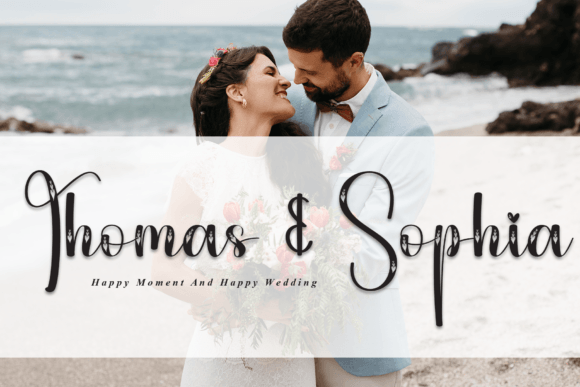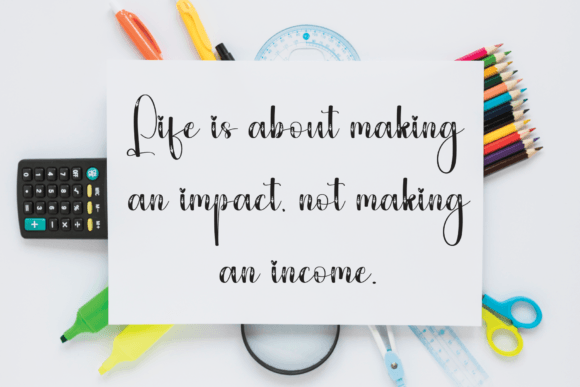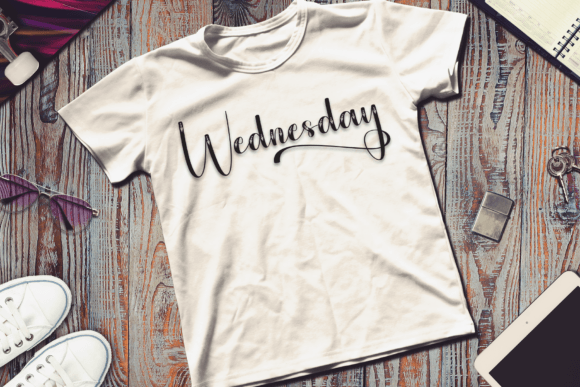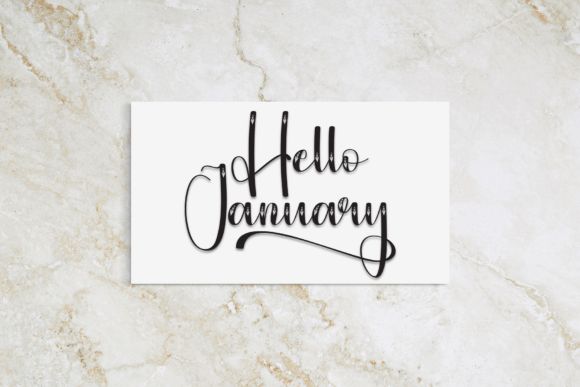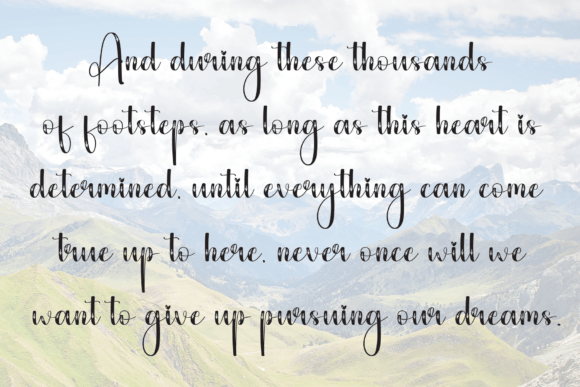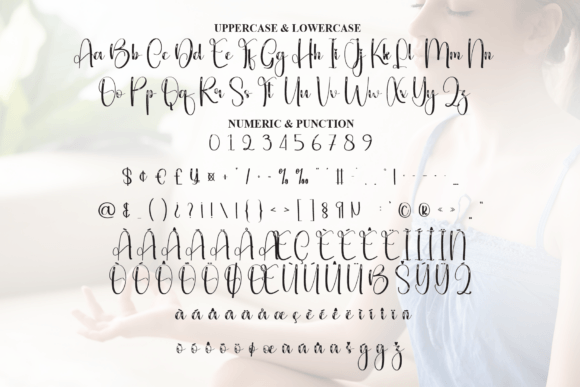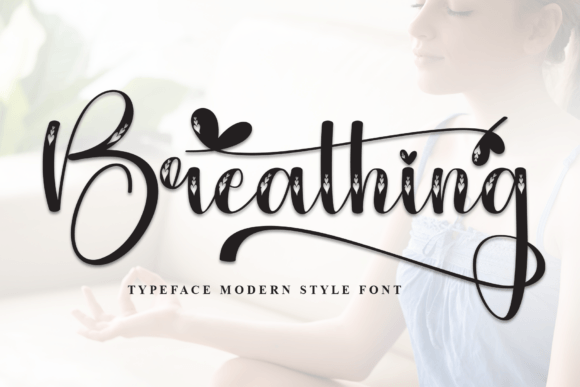
The Art of Beautiful Typography
There’s something magical about holding a beautiful invitation in your hands, the paper’s texture, the color of the ink, and the delicate strokes of the font that transport you to a world of elegance and sophistication. As designers, we strive to create such moments, to leave a lasting impression on our audience. And that’s where the Breathing Font comes in – a stylish handwritten script font that adds a personal touch to any design.
This enchanting font is perfect for invitations, logos, and branding, bringing warmth and creativity to your projects. Its delicate strokes exude charm and elegance, making it a valuable addition to any designer’s toolkit. Whether you’re working on a wedding invitation, a business logo, or a branding campaign, the Breathing Font is sure to elevate your design and leave a lasting impression.
Breathing Font Key Features
- Size: The font comes in multiple sizes, including Regular, Bold, Italic, and Bold Italic, allowing for varied levels of emphasis and expression.
- Unique Characteristic: The Breathing Font features a unique breathing effect, where the letters appear to inhale and exhale, creating a dynamic and engaging visual experience.
- Language Support: The Breathing Font supports a wide range of languages, including Latin, Cyrillic, and Greek scripts, making it a versatile choice for global design projects.
Breathing Font Review
Overall, I’d say the Breathing Font is an interesting and unique font that can add some visual interest to your designs. ✨ Here are some things that work well:
- Unique, dynamic feel: The Breathing Font has a distinctive, pulsing effect that can be used to draw attention or create a sense of movement.
- Customizable: The font comes in a range of styles and weights, making it easy to customize to fit your design needs.
- Perfect for creative projects: The Breathing Font is ideal for use in creative projects, such as infographics, presentations, and advertisements.
- Limited legibility: The Breathing Font’s unique design can make it difficult to read at small sizes or in certain contexts.
- May not be suitable for formal projects: While the Breathing Font can be effective in creative projects, it may not be the best choice for formal or professional contexts.
- Not suitable for long blocks of text: The Breathing Font is best used in short bursts of text, as long blocks of text can be overwhelming and difficult to read.
Overall, I’d say the Breathing Font is a fun and creative tool that can be used to add some visual interest to your designs. While it may have some limitations, it’s definitely worth considering for the right projects. ⚠️
Practical Application Guide for Breathing Font
Some common use cases for Breathing Font include:
– Creating elegant and modern invitations
– Designing eye-catching social media posts
– Crafting professional-looking business cards
– Experimenting with unique typography in graphic design projects
– Use the font in combination with bold colors to create a striking contrast
Alternatives to Breathing Font
Open Sans is a clean and modern sans-serif font. It’s ideal for digital products, websites, and apps where readability is crucial. Compared to Breathing Font, Open Sans has a more straightforward design and is more versatile in its applications.
Lato is a sans-serif font with a friendly, approachable feel. It’s suitable for use in branding, advertising, and editorial design. Lato’s softer design makes it a good alternative to Breathing Font for projects requiring a more human touch.